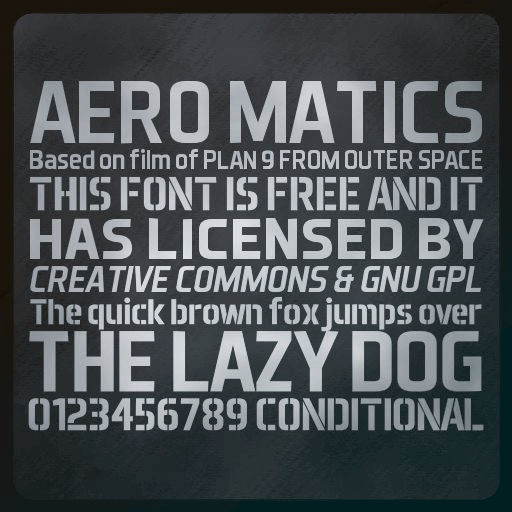
Preview and download Aero Matics Stencil Font. Created by Jayvee Enaguas in Fancy Stencil, Army styles with Free for personal use license.
Font name: | Aero Matics Stencil |
Author: | Jayvee Enaguas |
Note by Jayvee Enaguas | |
This font has designed by Jayvee D. Enaguas and it has inspired in 1959 font from "Plan 9 from Outer Space." Updated v1.45 - Fixed without errors and it has added in style of Bold and Bold Italic. |